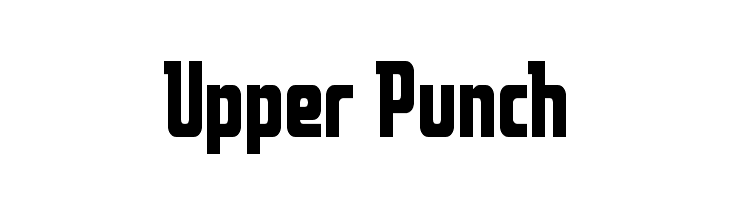
An ornamental and decorative font with intricate designs for each uppercase letter.
A playful font with skunk illustrations in bold uppercase letters.
An ornate, decorative font with ribbon-like designs and framed uppercase letters.
An ornate, decorative font with intricate designs in each uppercase letter.
A decorative font featuring ornate and intricate uppercase 'K' designs.
Bold, uppercase sans-serif letters within circular shapes for a vintage button badge look.
A bold, decorative font inspired by street signs, featuring uppercase letters in rectangular frames.
A playful, romantic font with uppercase letters inside heart shapes.
A bold, uppercase font with a clean and modern design.
A whimsical, decorative font with floral-inspired, intertwining uppercase letters.
A Celtic-inspired font with ornate uppercase and bold lowercase letters.
A playful, handwritten font with a mix of uppercase and lowercase letters.
An ornate, decorative font with intricate floral embellishments around uppercase letters.
A bold, uppercase font with a strong, modern presence.
A decorative font with intricate butterfly and floral patterns in uppercase letters and numbers.
A bold, decorative font with butterfly motifs in uppercase and numbers.
An elegant script font with ornate uppercase and bold lowercase letters.
An elegant script font with intricate, flowing lines and ornate uppercase letters.
An elegant script font with ornate uppercase letters and smooth, flowing lowercase characters.
An elegant script font with flowing, cursive strokes and ornate uppercase letters.
A classic serif typeface with bold uppercase and small caps lowercase letters, offering medium contrast and a formal appearance.
A bold, geometric font with boxed uppercase letters and consistent design.
A geometric, modern font with distinct horizontal lines and bold uppercase letters.
A dual-style font combining geometric uppercase letters with whimsical, flowing numerals and symbols.
A bold, decorative font with intricate swirls and framed uppercase letters.
A bold, decorative font with floral motifs in uppercase letters.